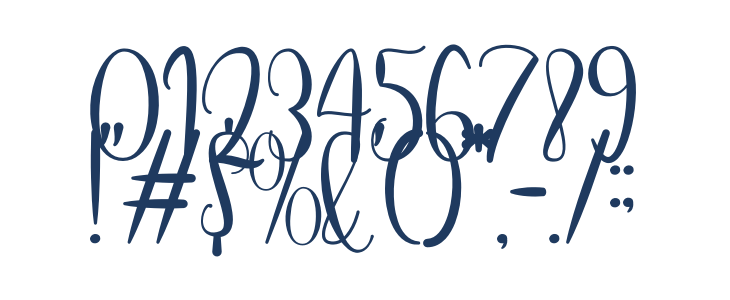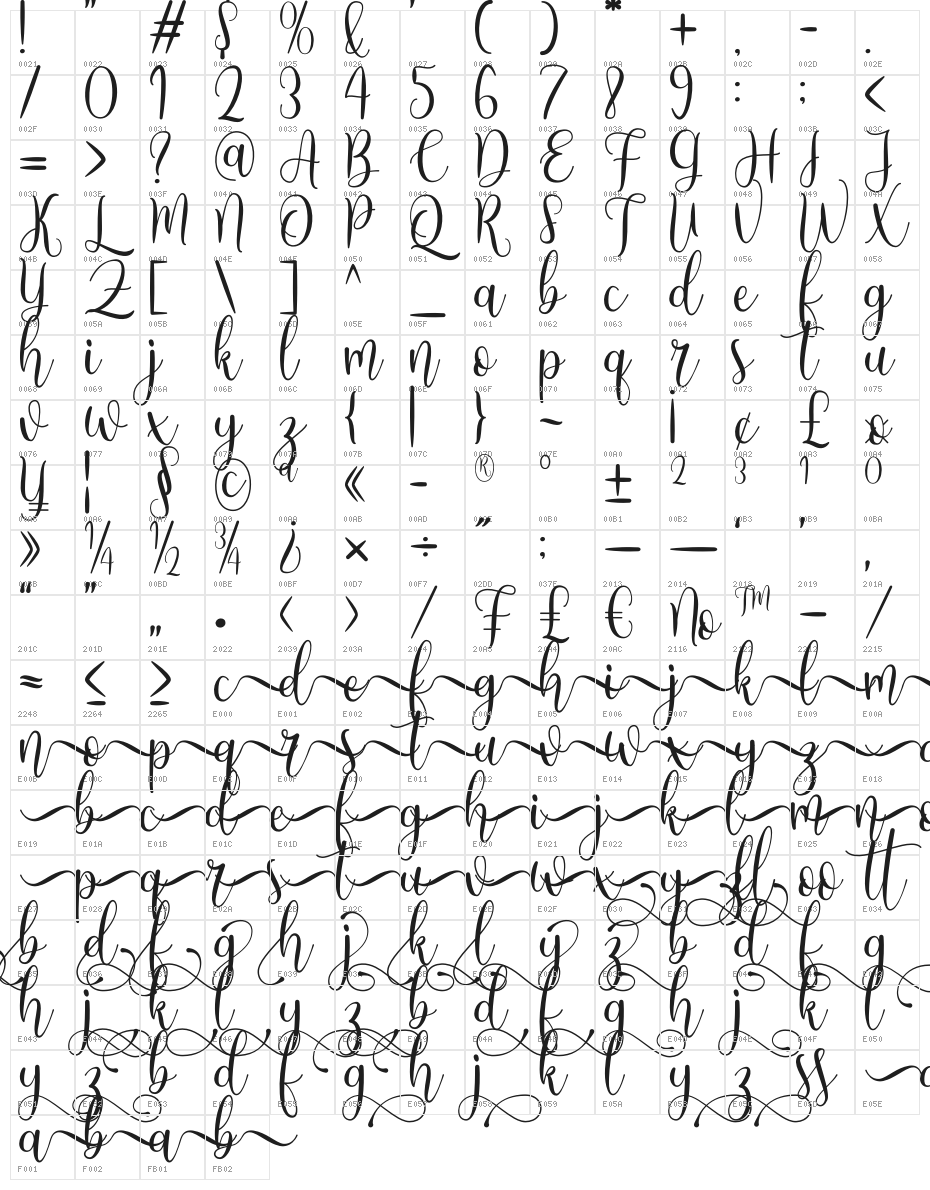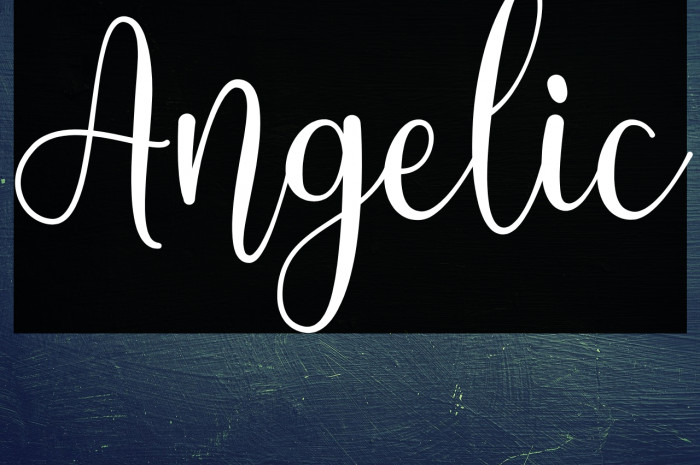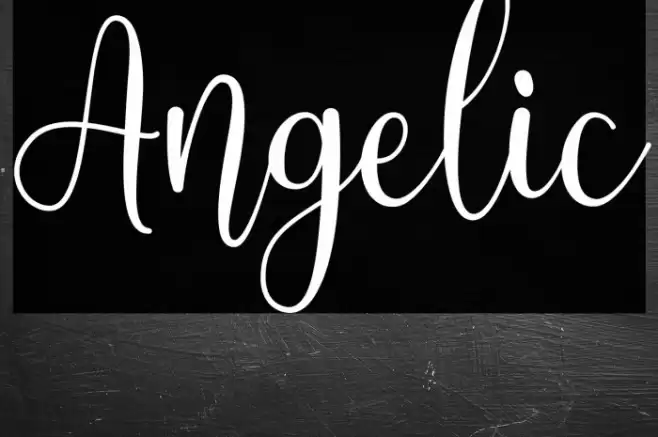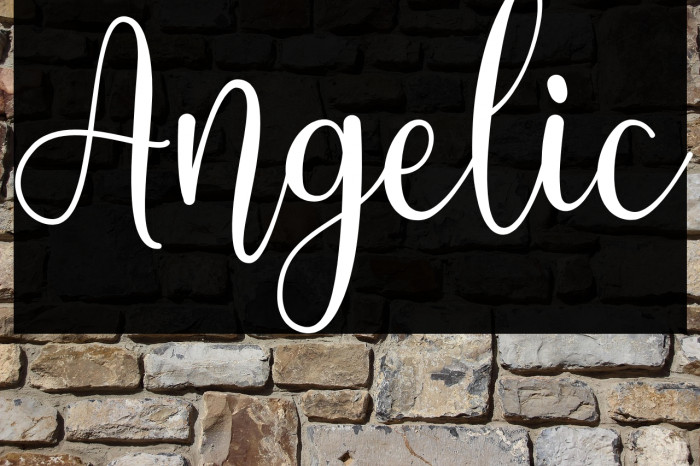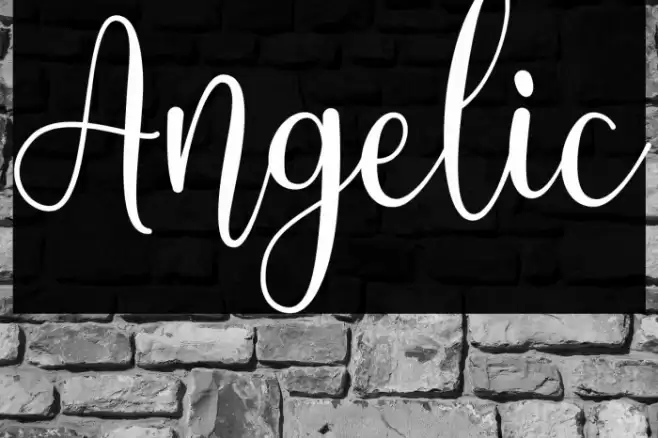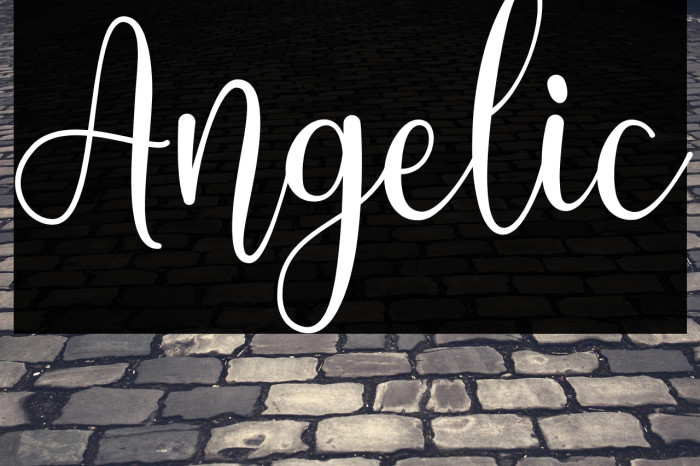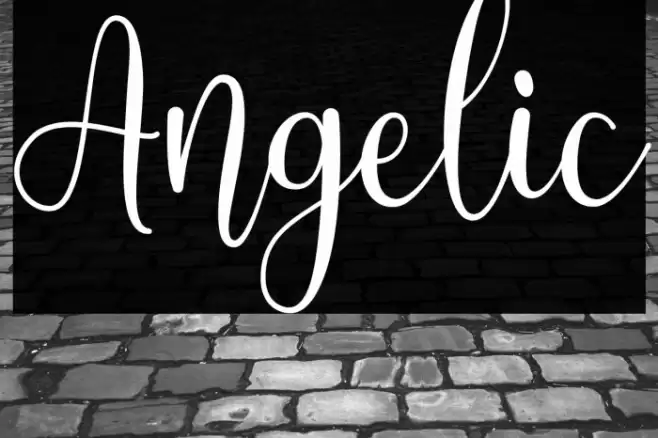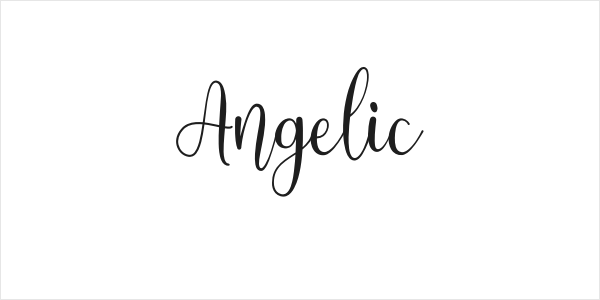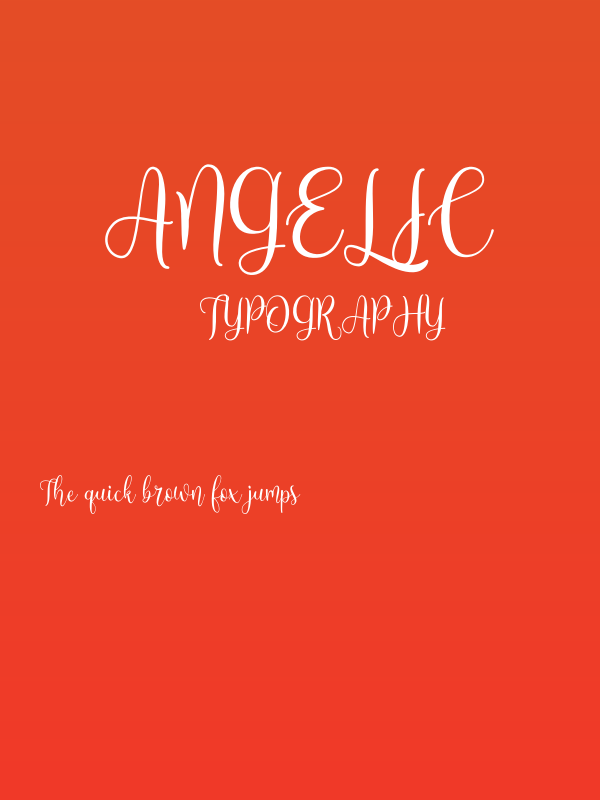
Angelic Font
Angelic Description
This font features an elegant and flowing script style, characterized by its smooth, cursive strokes and graceful loops. The uppercase letters are tall and slender, with distinctive flourishes that add a touch of sophistication. The lowercase letters maintain a consistent flow, enhancing readability while retaining an artistic flair. Numbers and special characters are designed to complement the overall aesthetic, with a balance of curves and straight lines. This font exudes a sense of elegance and charm, making it suitable for projects that require a personal and refined touch.